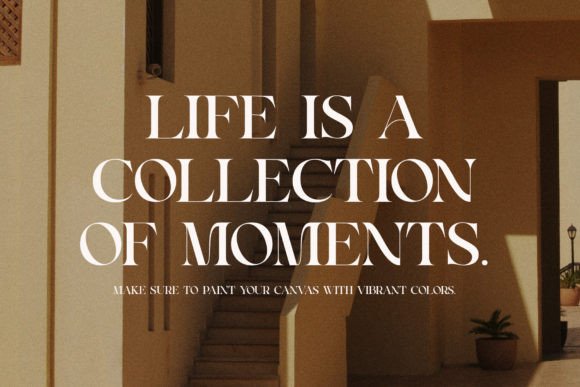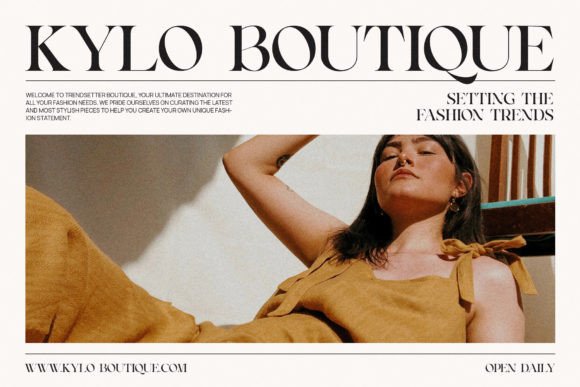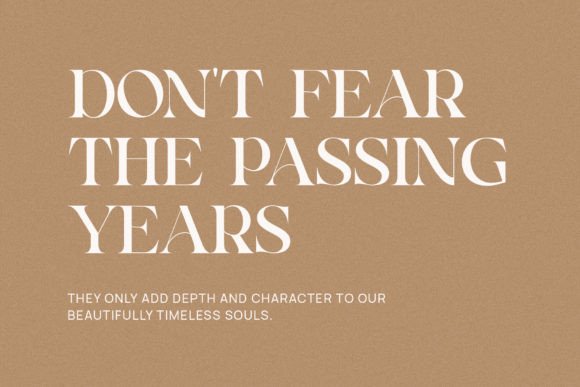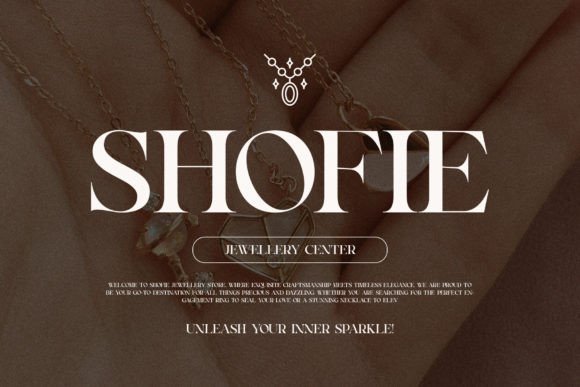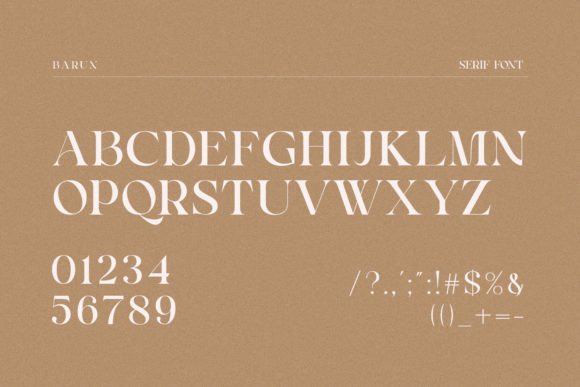
Introducing Barun Font: The Epitome of Elegance and Modernity
In the realm of typography, a font can make or break the visual appeal of a design. For designers and crafters seeking an elegant serif typeface that exudes class and modernity, look no further than Barun Font. This versatile font is meticulously crafted to cater to a wide range of design needs, from branding projects and logos to wedding designs, social media posts, and beyond.
The Essence of Barun Font
Barun Font is an elegant serif typeface that strikes the perfect balance between traditional sophistication and modern flair. Its design is characterized by clean lines, refined curves, and a distinctive elegance that sets it apart from more conventional fonts. This font is not just a tool for communication; it’s an element of design that can elevate your projects to new heights of aesthetic appeal and readability.
One of the standout features of Barun Font is its incredible versatility. Whether you’re working on:
- Branding projects: Create a lasting impression with a font that communicates sophistication and elegance.
- Logos: Design a logo that stands out with a unique and memorable typeface.
- Wedding designs: Add a touch of class and romance to your wedding invitations, decorations, and more.
- Social media posts: Engage your audience with visually appealing posts that reflect a high level of professionalism.
- Advertisements: Capture attention and convey your message effectively with a font that is both elegant and easy to read.
- Product packaging: Elevate your product’s presentation with a sophisticated and modern typeface.
- Product designs: Incorporate Barun Font into your product designs for an added layer of aesthetic appeal.
- Labels: Create labels that are not only informative but also visually striking.
- Photography: Use Barun Font for watermarks or captions that add an elegant touch to your photographs.
- Invitations: Whether it’s a wedding, birthday, or any other event, make your invitations memorable with this beautiful font.
- Stationery: Give your stationery a professional and elegant look that leaves a lasting impression.
This wide range of applications makes Barun Font an indispensable tool in any designer’s toolkit.
Readability and Aesthetic Appeal
Barun Font is designed with a high level of readability, ensuring that your message is conveyed effectively and efficiently. Its elegant serif typeface not only adds a touch of sophistication to your designs but also enhances the overall readability, making it perfect for both digital and print media.
Why Choose Barun Font?
In a world where design plays a crucial role in communication, Barun Font offers the perfect blend of elegance, modernity, and versatility. Here are a few reasons why Barun Font should be your go-to choice:
- Elegant and Modern: A perfect combination of traditional elegance and modern style.
- High Readability: Ensures your message is communicated clearly and effectively.
- Versatile: Suitable for a wide range of design projects.
- Professional: Adds a touch of professionalism to any design.
Barun Font is more than just a typeface; it’s a design element that can transform your projects with its elegance, modernity, and versatility. Whether you’re a professional designer or a crafter, Barun Font offers the perfect solution for all your design needs. With its high level of readability and aesthetic appeal, it’s an excellent choice for anyone looking to elevate their designs. So, why wait? Explore the possibilities with Barun Font today and take your designs to new heights of sophistication and elegance.